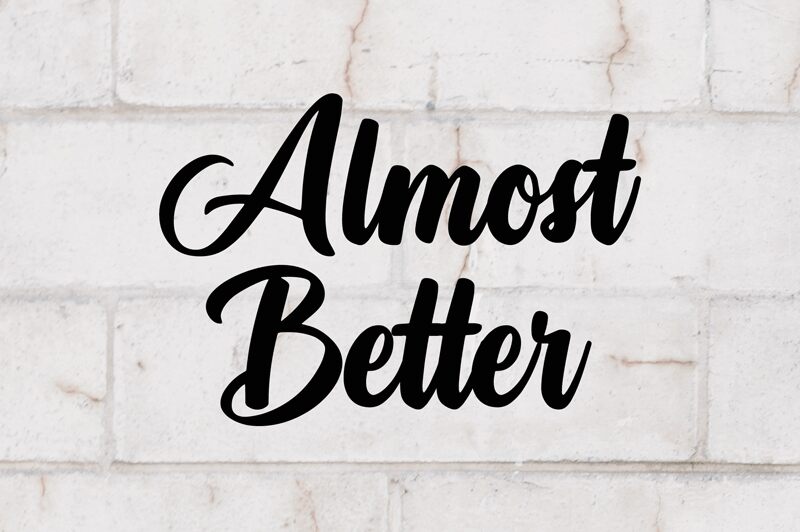
Smooth yet bold, "Almost Better" by Danil Studio is a captivating font that exudes a sense of sophistication and elegance. Crafted with a subtle brush stroke, this typeface seamlessly blends modern and vintage aesthetics, creating a visually striking and captivating impression. The fluid, organic lines of the letterforms convey a sense of movement and fluidity, while the bold weight lends an air of confidence and authority.
This versatile font can find its place in a wide range of design applications, from high-end branding and packaging to editorial layouts and promotional materials. Its versatility allows it to effortlessly transition between formal and casual settings, making it a valuable asset in the creative toolkit of designers and marketers alike.
Almost Better